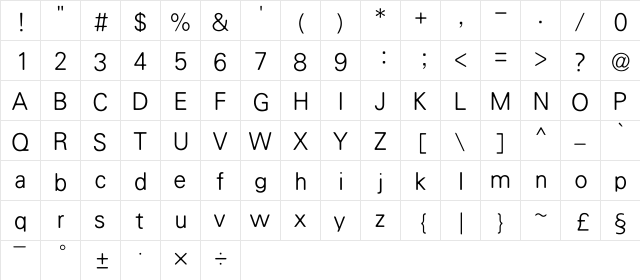
HanWangHeiLight Regular Font Preview
HanWangHeiLight Regular
HanWangHeiLight Regular Font Details
Design Context for HanWangHeiLight Typeface
HanWangHeiLight offers clean, dependable letterforms without strong stylistic allegiance, making it a practical choice for designers who need flexibility. Its slender proportions lend an understated elegance to any composition.
Pro Tip: Pair HanWangHeiLight with a font of contrasting weight or personality to build a more expressive typographic hierarchy.